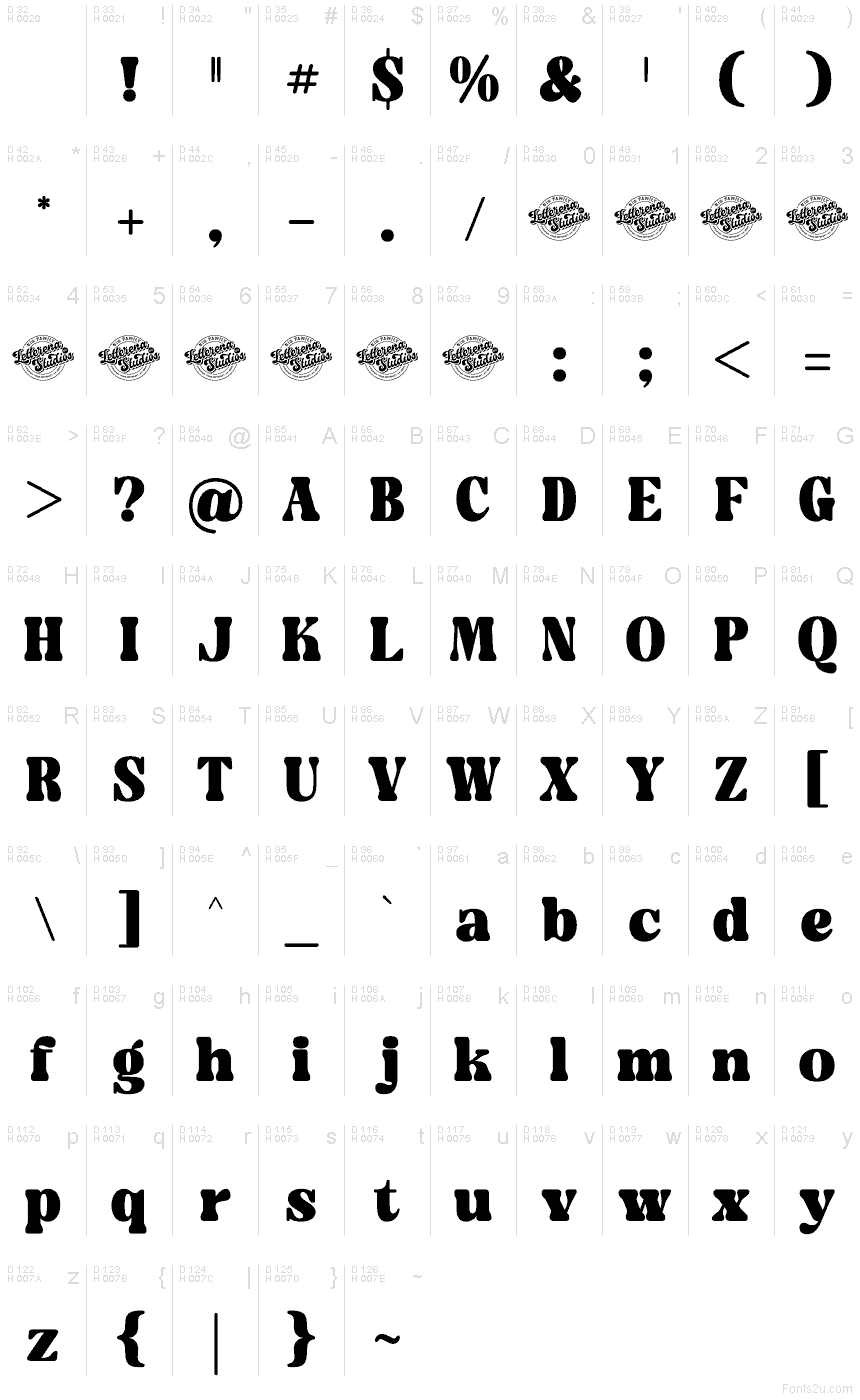
Midnight Gelactic DEMO VERSION
Midnight Gelactic font by Letterena Studios is a free bold retro display font. It stands out with inky, bubble-thick strokes and plush, teardrop serifs that feel almost velvety on the page. The rhythm is tight and confident, giving headlines a satisfying thump while those rounded edges keep it warm and approachable—like 70s poster lettering dusted off and polished for today.
Using Midnight Gelactic, headlines snap into focus on event posters, album covers, cafe menus, festival branding, beverage labels, and social media graphics. This free font begs for large sizes and slightly looser tracking to let the curves breathe. For copy or subheads, pair it with a light, neutral grotesk to balance the rich, chewy forms and keep layouts crisp.